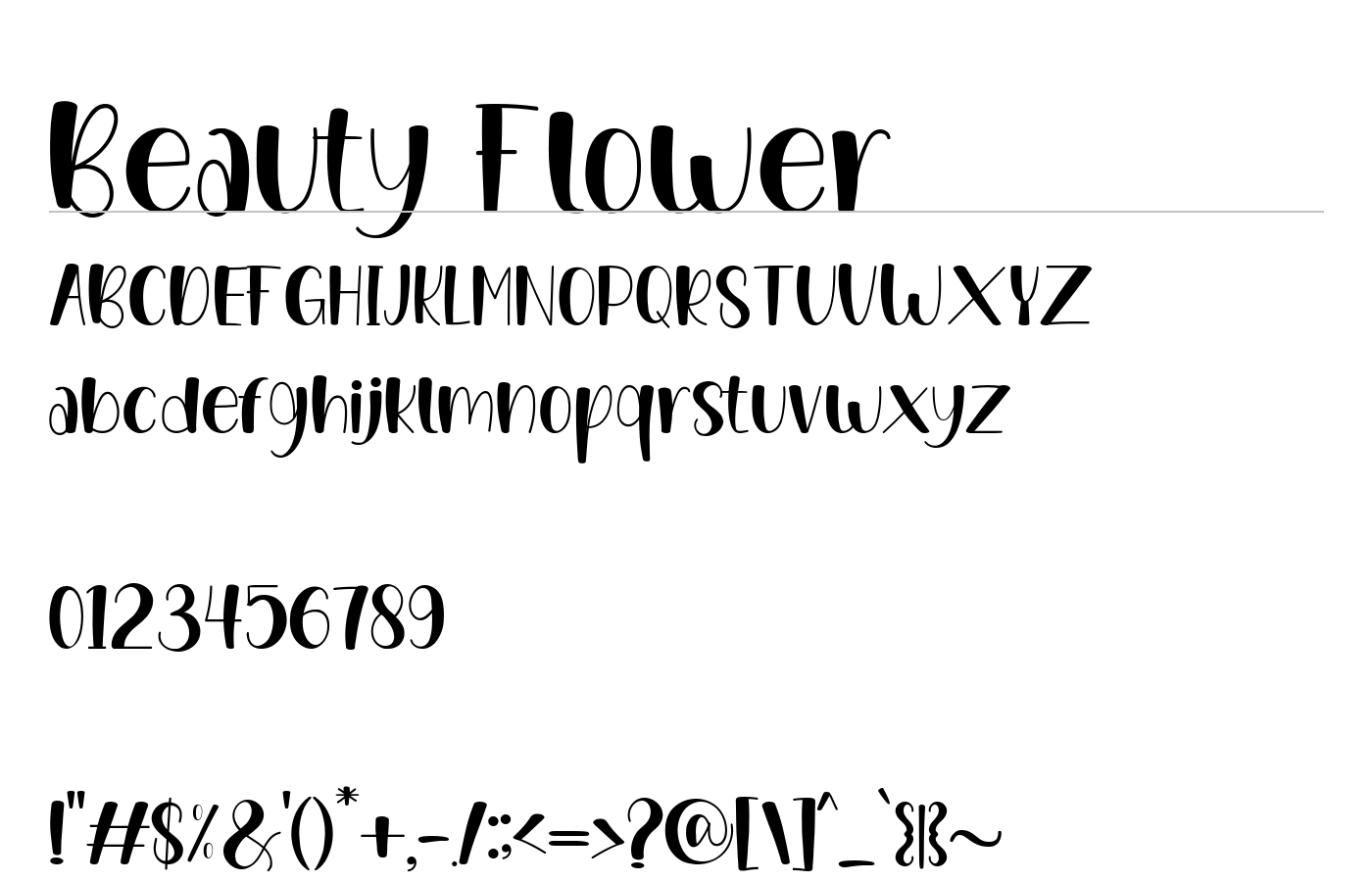
Beauty Flower is a playful and charming handwritten sans serif font with a mix of thin and bold strokes, creating a lively and whimsical feel. Its tall, narrow letterforms and unique quirky details make it perfect for creative branding, invitations, and projects that want a friendly, lighthearted touch. This font works best in headlines and decorative uses where personality and warmth are key.
Beauty Flower Font
About Beauty Flower Font